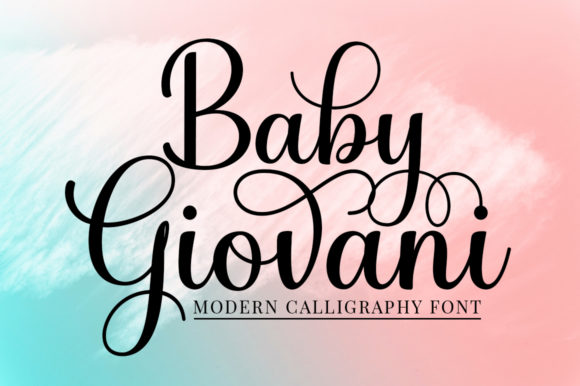
Are you looking for a script font that exudes sophistication and elegance? Look no further than Baby Giovani Script Font, created by Mytha Studio. This font is the epitome of chic refinement and is perfect for any project that requires a touch of class.
One of the standout features of Baby Giovani is its stylish alternates and ligatures, which add depth and character to your designs. Whether you're creating wedding invitations, branding materials, or social media graphics, this font will elevate your work to the next level.
With Baby Giovani, you'll have access to a wide range of characters, including uppercase and lowercase letters, numbers, and punctuation marks. Plus, the font is available in both OTF and TTF formats, so you can use it with your favorite design software.